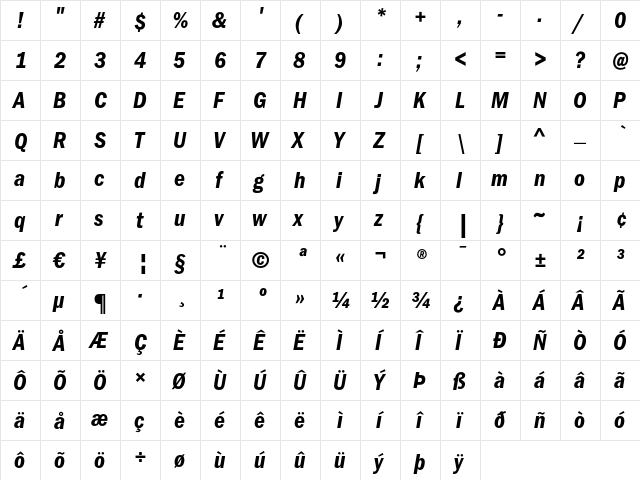
ITC Franklin Gothic LT Demi Condensed Italic Font Preview
Design Context for ITC Franklin Gothic LT Typeface
ITC Franklin Gothic LT has the quiet confidence of well-executed sans-serif typography: versatile, unobtrusive, and dependable at any size. Its italic angle brings a sense of urgency and motion to the letterforms. Its slender proportions lend an understated elegance to any composition. Its narrow stance lets it pack a punch even in space-constrained designs.
Ideal for fashion and beauty branding, minimal editorial layouts, and premium digital experiences.
Font Pairing: Pair ITC Franklin Gothic LT with a medium or bold serif for headlines — the weight contrast creates an elegant, high-end feel.
Pro Tip: Try ITC Franklin Gothic LT in all-caps with moderate tracking for navigation and label copy — it performs well in systematic UI contexts.